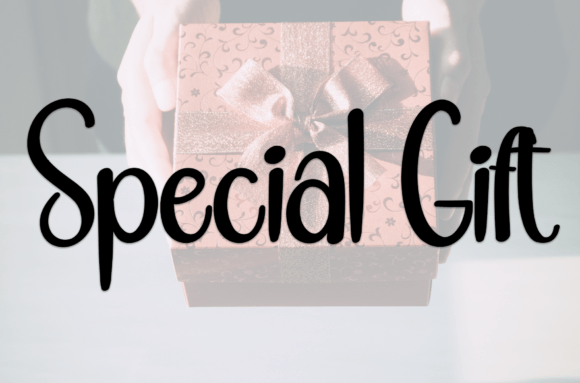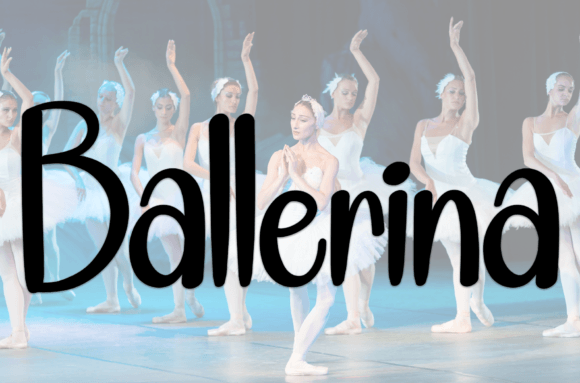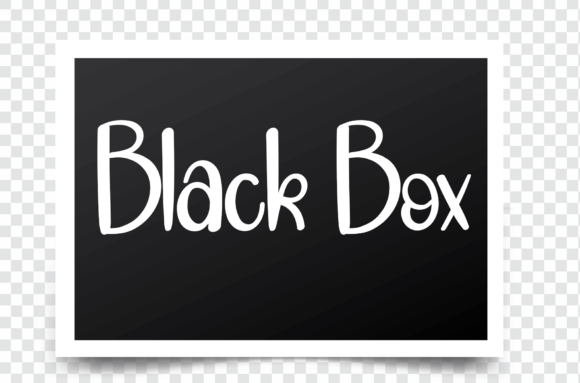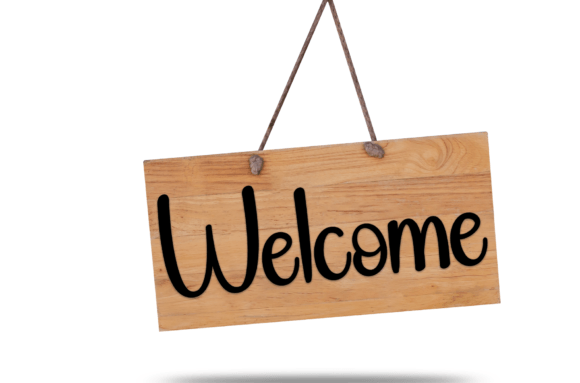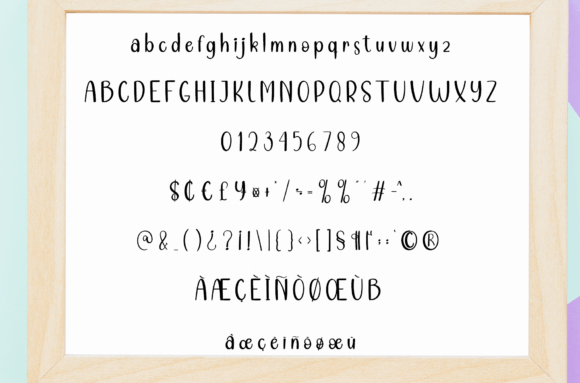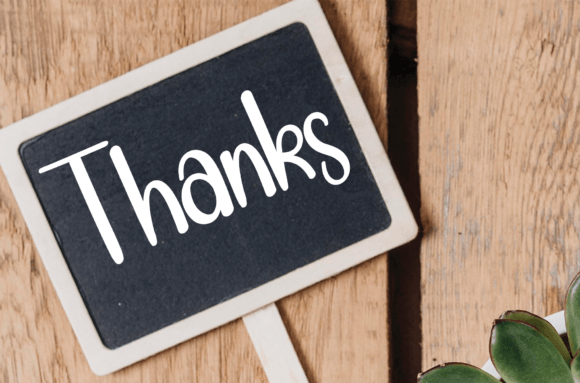
Sweet Sugar Font
What Is Sweet Sugar Font?
Sweet Sugar Font is a cute and friendly handwritten script designed to bring a fun, creative touch to your projects. Its smooth, playful letters look fresh and inviting, making any design feel approachable and warm. Each character has a balanced shape that feels casual yet polished.
This font combines modern charm with a handcrafted feel, which is perfect for designers who want their work to stand out in a friendly, lighthearted way.
Sweet Sugar Font is ideal for many creative uses. For example, it looks beautiful on wedding invitations and save-the-date cards. Its sweet style creates a joyful mood that guests will notice and appreciate.
You can also use it on greeting cards for birthdays, anniversaries, or holidays. The handwritten letters make messages feel personal and heartfelt, adding extra meaning to every word.
If you design logos or branding materials, Sweet Sugar Font helps your brand appear playful and approachable. Boutiques, craft shops, and bakeries often choose this type of script to show their friendly personality.
Additionally, Sweet Sugar Font is perfect for social media content. Whether you create quotes, promotions, or announcements, this font brings energy and consistency to your posts.
It also works well in product packaging and labels. Handmade items, organic goods, and artisan treats look even more special with a cute handwritten touch.
Why Should You Choose Sweet Sugar Font?
One of the top reasons to use Sweet Sugar Font is its versatility. You can pair it with clean sans-serif or serif fonts to balance its decorative style. This combination keeps your designs clear and professional while adding personality.
Another benefit is its readability. Even with its playful look, Sweet Sugar Font remains legible at both small and large sizes. Whether you’re designing a tiny label or a big poster, your text will stay sharp and easy to read.
Sweet Sugar Font makes your projects feel lively and personal. The playful curves and friendly shapes create an instant connection with your audience. This warmth helps your work stand out and feel more memorable.
Its smooth strokes and consistent structure also give your layouts a polished look. Even casual designs feel thoughtful and well-crafted when you use a high-quality script like Sweet Sugar.
Choosing a charming handwritten font shows that you care about details. Clients and customers notice this extra effort, which helps build trust and strengthens your brand’s image.
Sweet Sugar Font is more than a cute script—it’s a creative tool that adds joy and personality to every design. From wedding invitations to social media graphics and product packaging, this font adapts to many uses and always makes a positive impression.